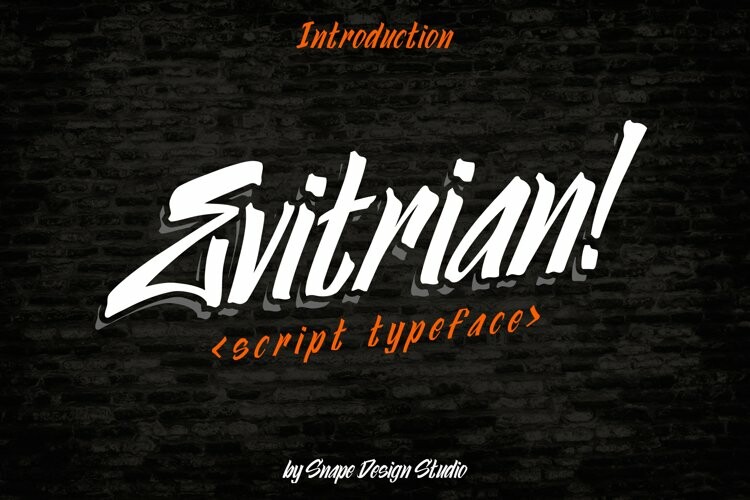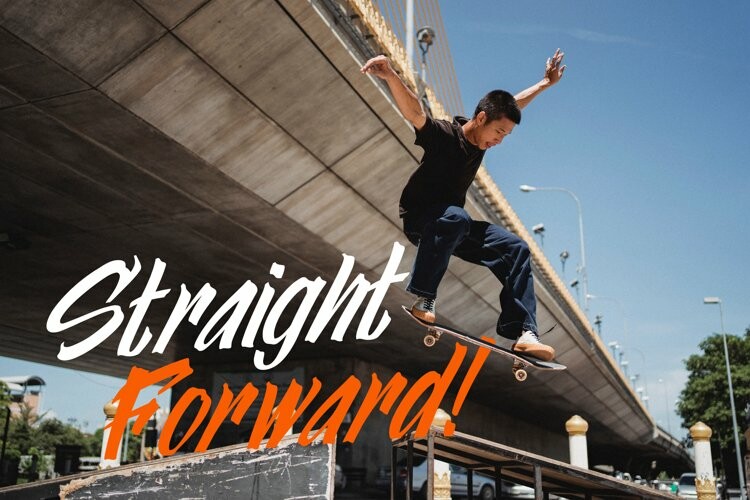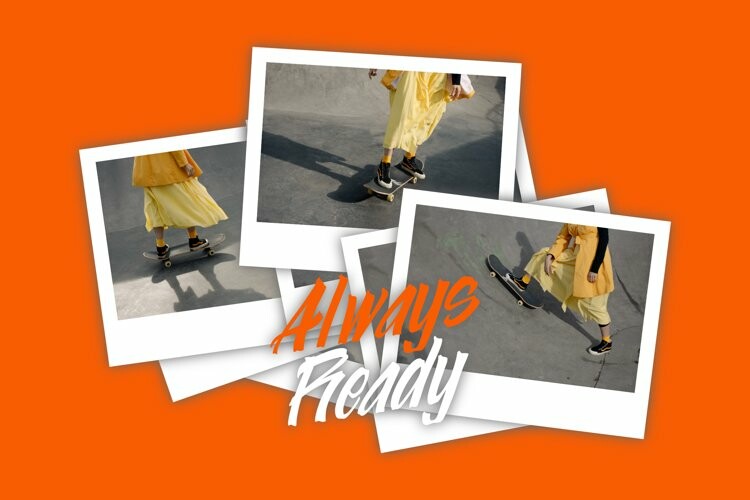
Evitrian – Urban Street Font
Evitrian - Urban Street FontEvitrian is a strong, urban styled display font. Incredibly modern and unique, this font will make each of your designs stand out!
Great for Logo, Sticker, Notes, Invitation Card, Brochure, etc.